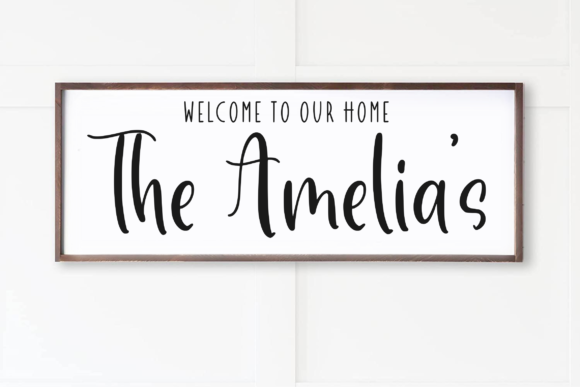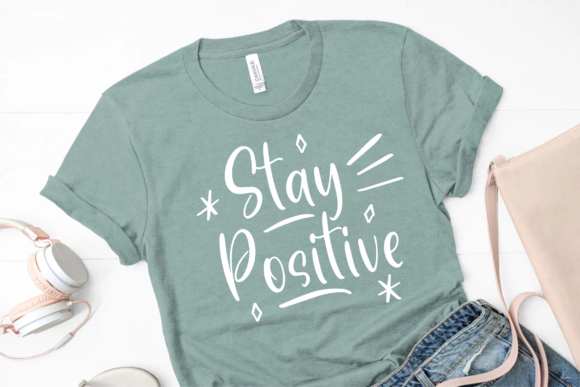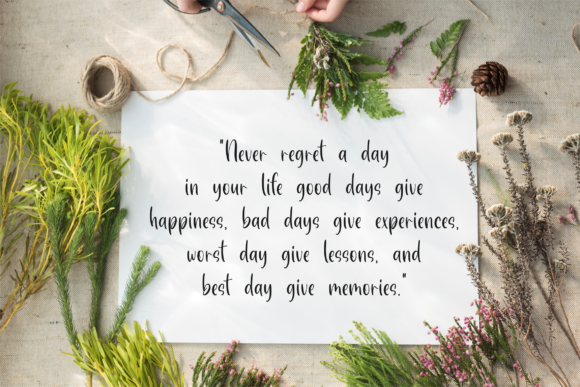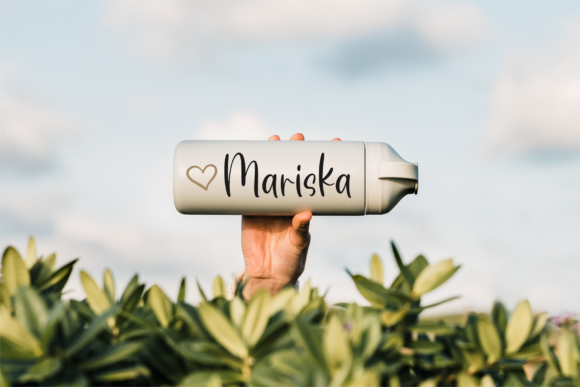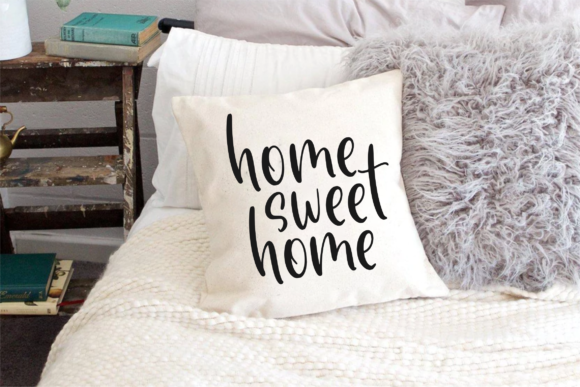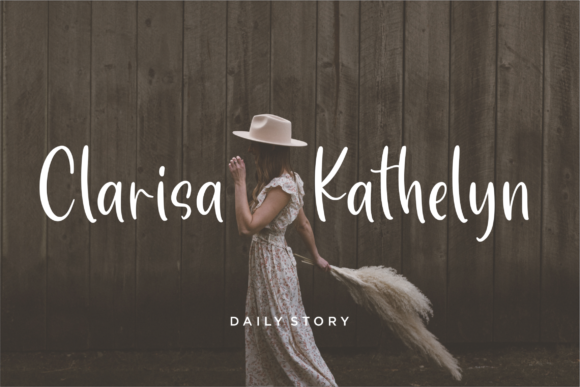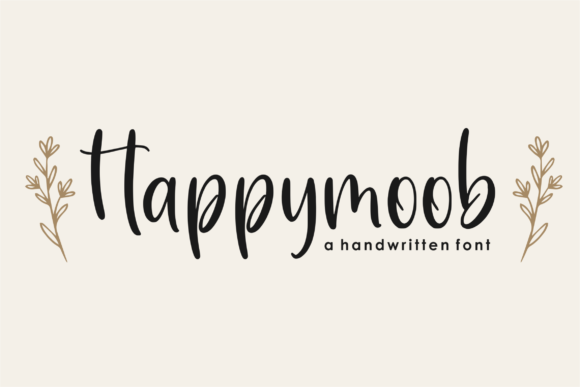
Happymoob Font: The Sweet and Friendly Handwritten Font for Your Designs
Are you a designer or crafter looking for a font that can add a touch of sweetness and friendliness to your projects? Look no further than the Happymoob font! This beautiful handwritten font is perfect for a wide range of designs, from invitations and greeting cards to logos and branding materials. In this article, we’ll take a closer look at the Happymoob font and explore its features, benefits, and uses.
What is Happymoob Font?
Happymoob is a sweet and friendly handwritten font that is designed to bring a personal touch to your designs. Its natural and unique style makes it incredibly fitting to a large pool of designs, from playful and whimsical to elegant and sophisticated. The font is perfect for designers and crafters who want to add a human touch to their projects and make them stand out from the crowd.
Features of Happymoob Font
The Happymoob font has several features that make it a great choice for designers and crafters. Some of its key features include:
- Handwritten style: The Happymoob font has a beautiful handwritten style that is perfect for adding a personal touch to your designs.
- Natural and unique: The font has a natural and unique style that makes it stand out from other fonts.
- Versatile: The Happymoob font is incredibly versatile and can be used for a wide range of designs, from invitations and greeting cards to logos and branding materials.
- Easy to read: The font is easy to read, even at small sizes, making it perfect for designs that require a lot of text.
Benefits of Using Happymoob Font
There are several benefits to using the Happymoob font in your designs. Some of the benefits include:
- Adds a personal touch: The Happymoob font adds a personal touch to your designs, making them more relatable and engaging.
- Stand out from the crowd: The font’s unique style makes it stand out from other fonts, helping your designs to get noticed.
- Perfect for creative projects: The Happymoob font is perfect for creative projects, such as invitations, greeting cards, and logos.
Uses of Happymoob Font
The Happymoob font can be used for a wide range of designs, including:
- Invitations: The font is perfect for invitations, such as birthday party invitations, wedding invitations, and baby shower invitations.
- Greeting cards: The Happymoob font is great for greeting cards, such as birthday cards, Christmas cards, and thank-you cards.
- Logos and branding materials: The font can be used for logos and branding materials, such as business cards, letterheads, and brochures.
- Social media graphics: The Happymoob font is perfect for social media graphics, such as Facebook posts, Instagram posts, and Twitter headers.
Tips for Using Happymoob Font
Here are some tips for using the Happymoob font in your designs:
- Use it with a playful tone: The Happymoob font is perfect for playful and whimsical designs, so use it with a tone that matches its style.
- Experiment with colors: The font looks great in a variety of colors, so experiment with different colors to find the one that works best for your design.
- Pair it with other fonts: The Happymoob font can be paired with other fonts to create a unique and interesting design.
In conclusion, the Happymoob font is a sweet and friendly handwritten font that is perfect for designers and crafters who want to add a personal touch to their projects. Its natural and unique style makes it incredibly fitting to a large pool of designs, and its versatility makes it easy to use for a wide range of projects. With its ease of use, unique style, and versatility, the Happymoob font is a great choice for any designer or crafter looking to add a touch of sweetness and friendliness to their designs.